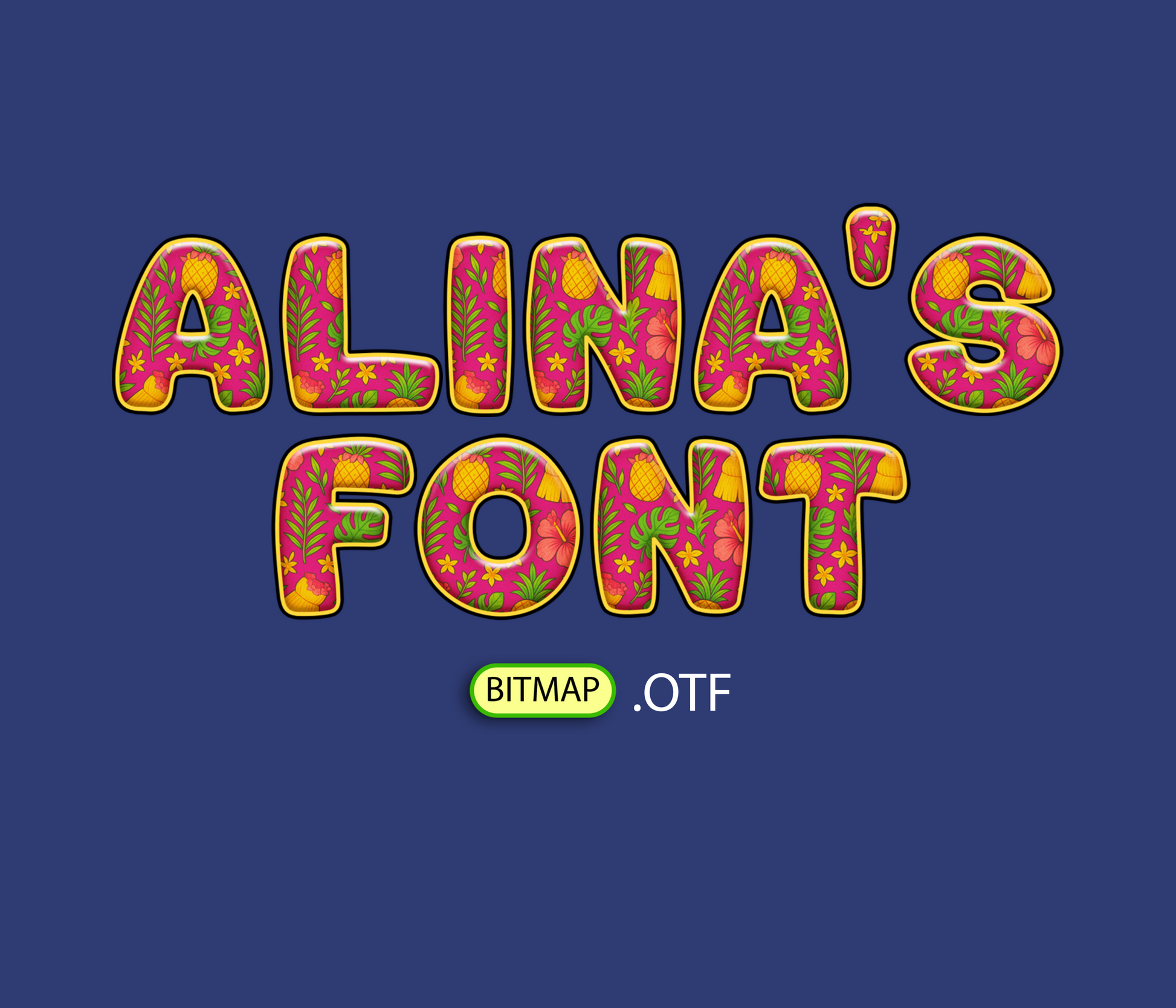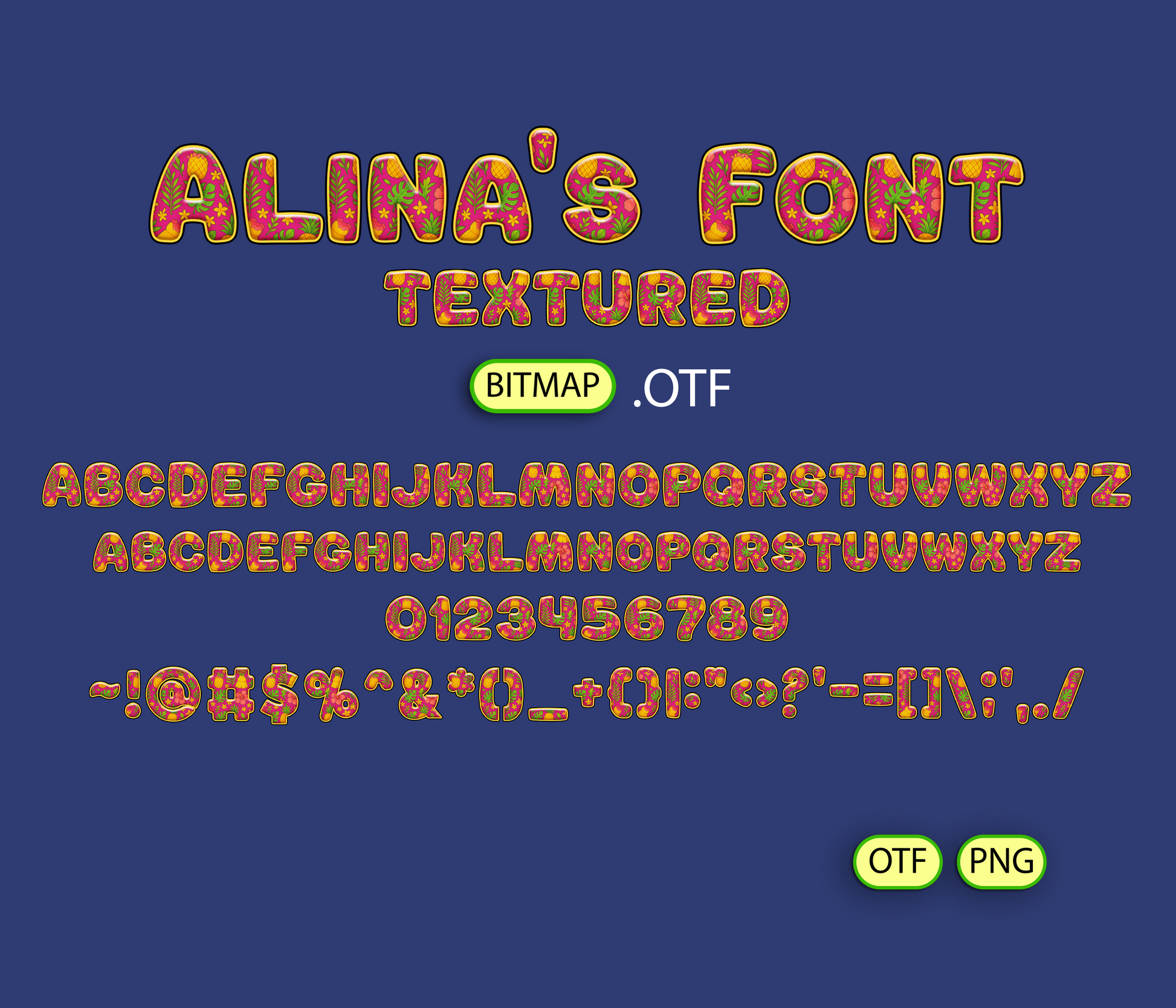
Pacific Paradise Pattern Font
Pacific Paradise Typeface Textured
Embark on a journey to the magnificent world of oceanic bliss with our Pacific Paradise Typeface, reflecting the beauty of golden beaches, turquoise waters, and island adventures. Perfect for vacation planners, seaside restaurants, wellness retreats, and artistic creators, this font channels the peaceful, tropical atmosphere of Hawaiian shorelines into your designs. Design breathtaking visuals, beach-themed products, or web content with the soothing, exotic charm of plumeria gardens and azure horizons.
Our Pacific Paradise Typeface displays graceful, tide-inspired shapes and easygoing letterforms celebrating the harmonious yet dynamic nature of coastal paradise. Ideal for:
- Travel Sector: Build compelling identities, merchandise wrapping, and advertising content for oceanfront lodges, poke bars, and souvenir shops
- Family Design: Outstanding for beach adventure books, tropical birthday themes, and teaching materials that highlight underwater discoveries
- Web Content: Transform sites, journals, and social networks with paradise-themed headings and imagery that radiate seaside calm and wanderlust
- Academic Resources: Incorporate authentic style into Pacific culture materials, vacation planning guides, and promotions for remote escapes
- Hobby Projects: Infuse coastal magic into announcements, handmade crafts, and room decoration influenced by the splendor of sea breeze and tropical gardens